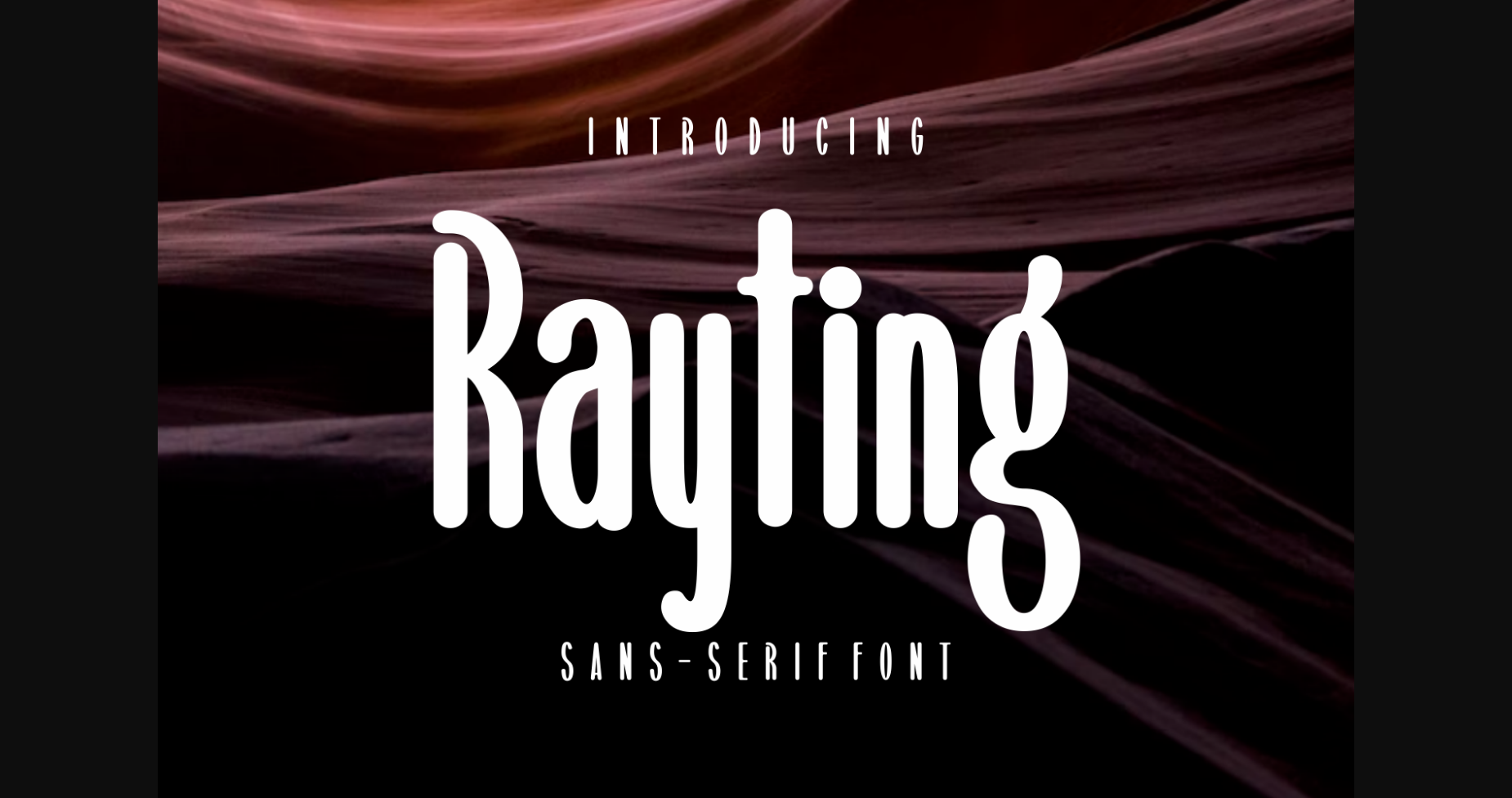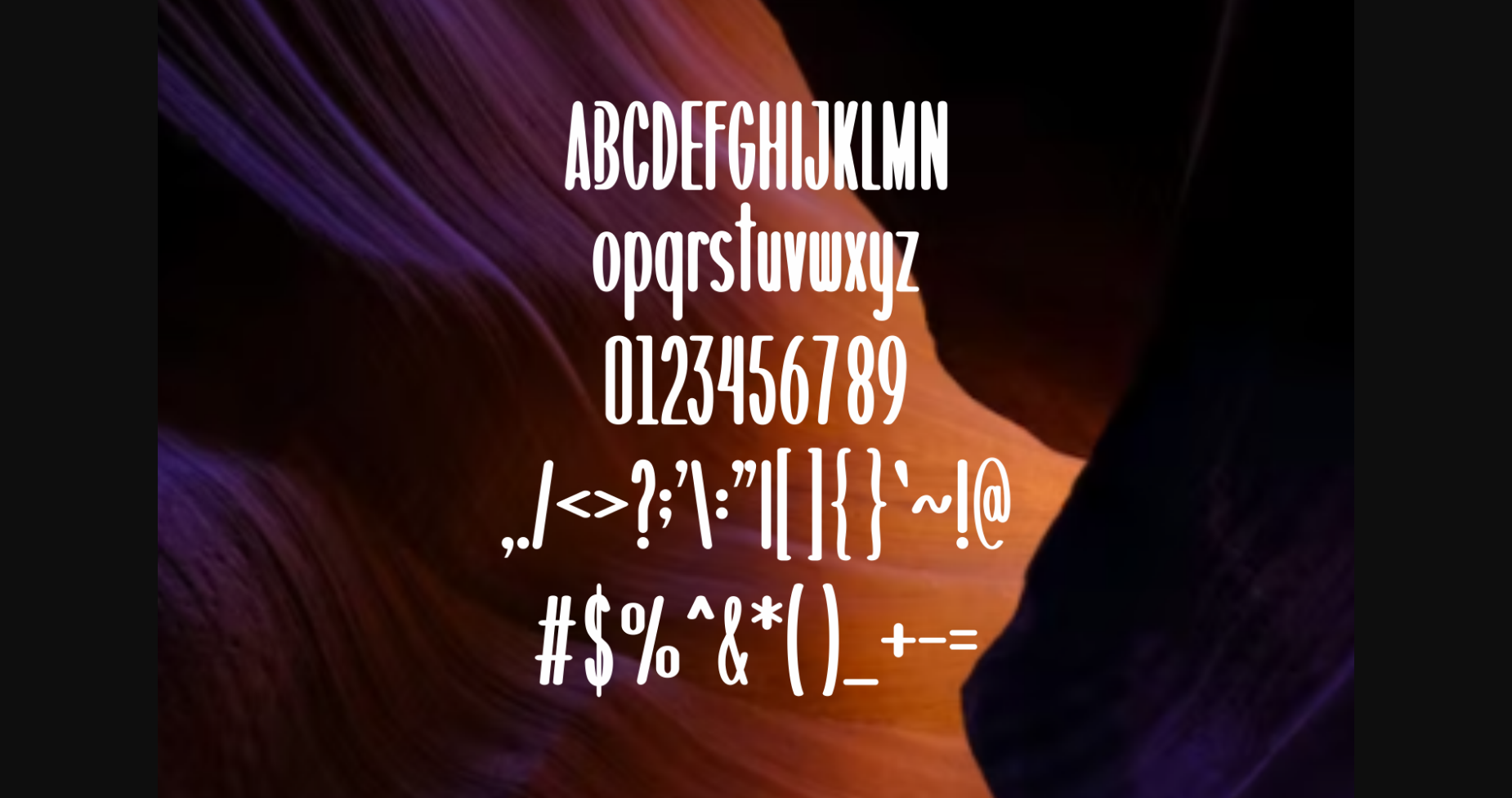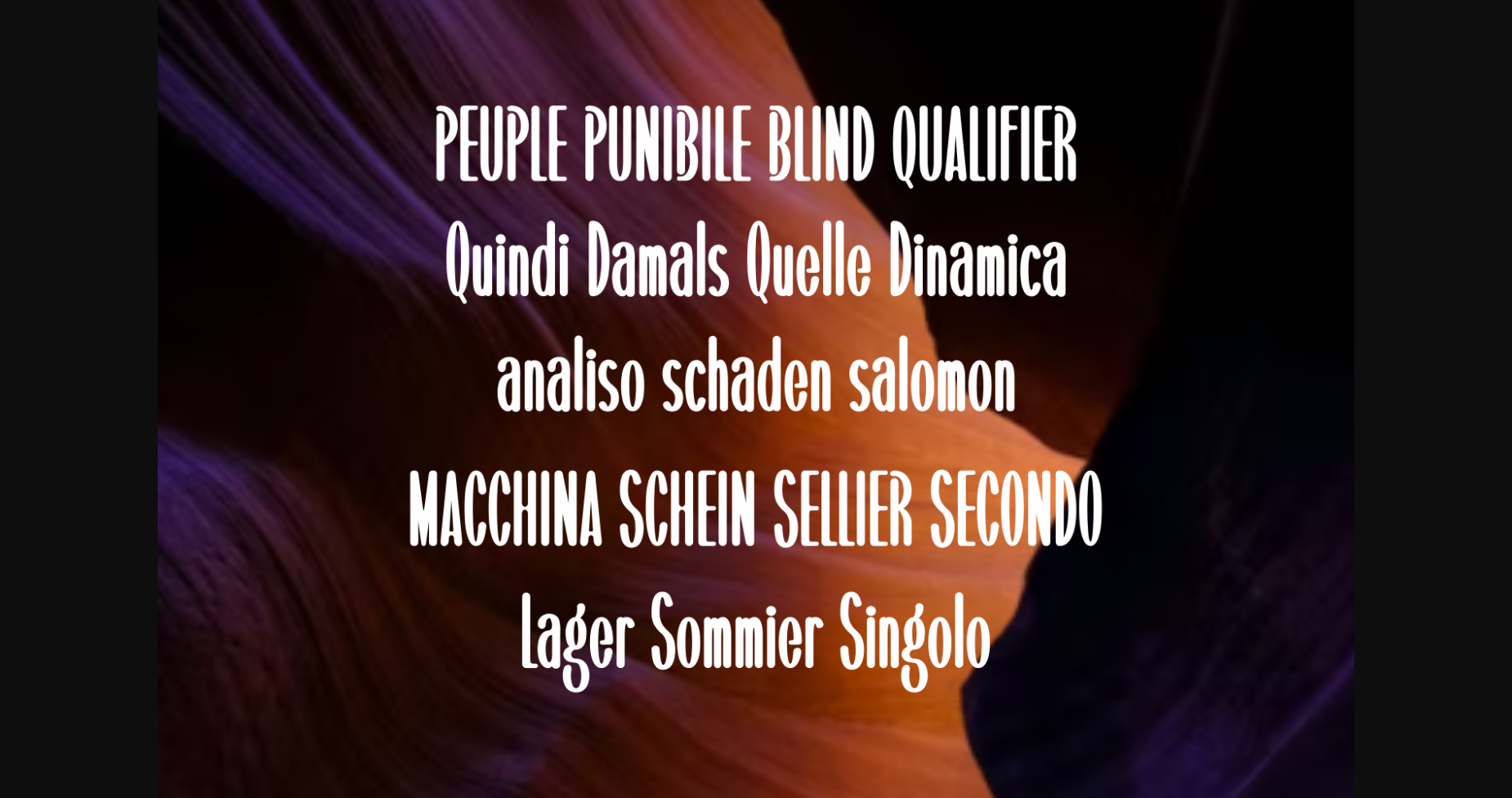
Rayting Font
About Rayting Font
Rayting is a clean and eye-catching sans-serif font, featuring sleek lines and a modern feel. Perfect for any project, with a hint of sophistication and minimalism sure to make an impact. A timeless font that will never go out of style.